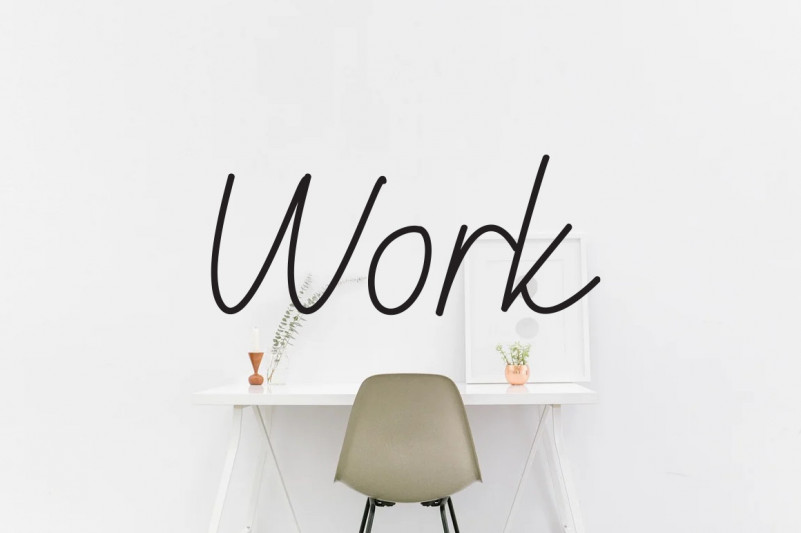
Dream House Handwritten Font
This is a magical script font carefully created with a touch of elegance. Whether you’re looking for fonts for Instagram or calligraphy scripts for DIY projects, this font will turn any creative idea into a true piece of art!